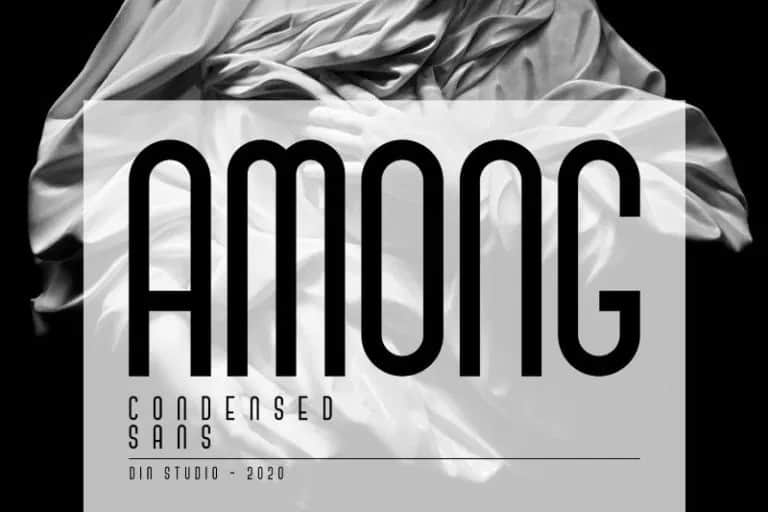
Among Sans Serif Font
Among Sans Serif Font is a classy and timeless sleek lines sans serif typeface. It’s designed and shared by Din Studio. This typeface is a beautiful sans font. Made for any professional project branding. It is perfect for printing, branding and quotes. Every letter has a unique and beautiful touch.